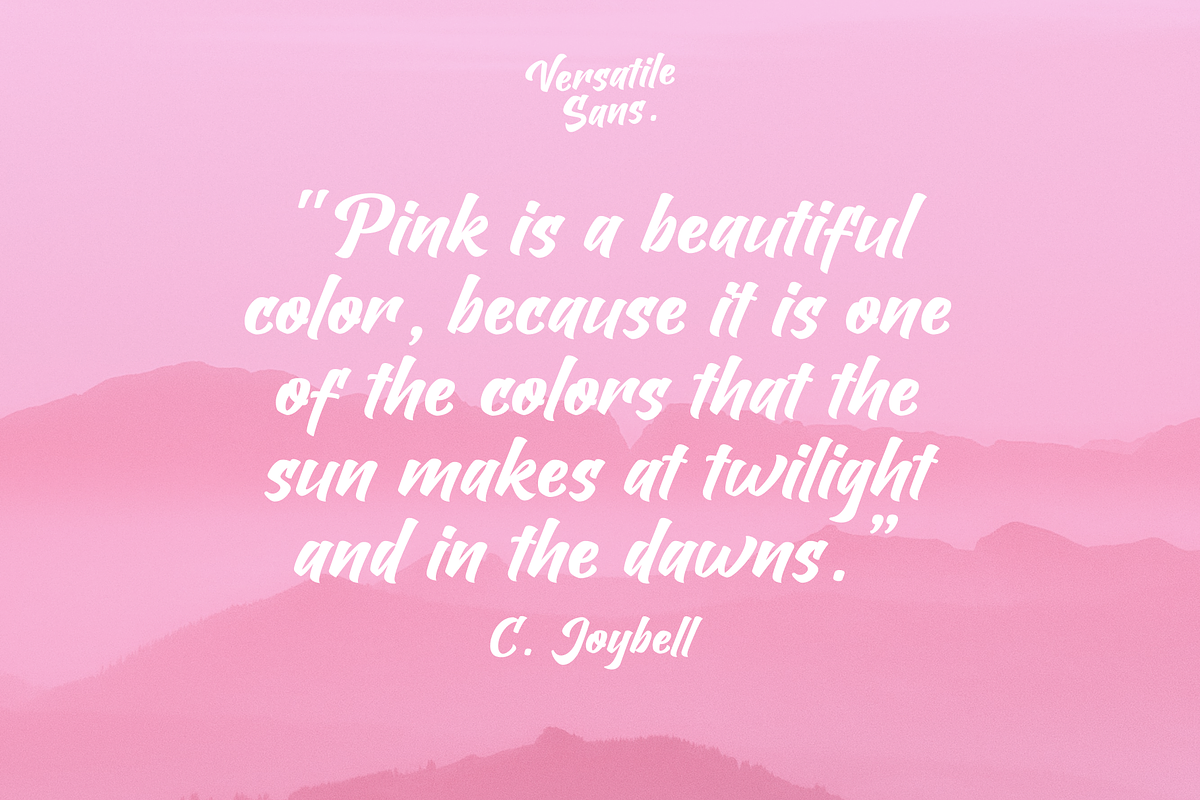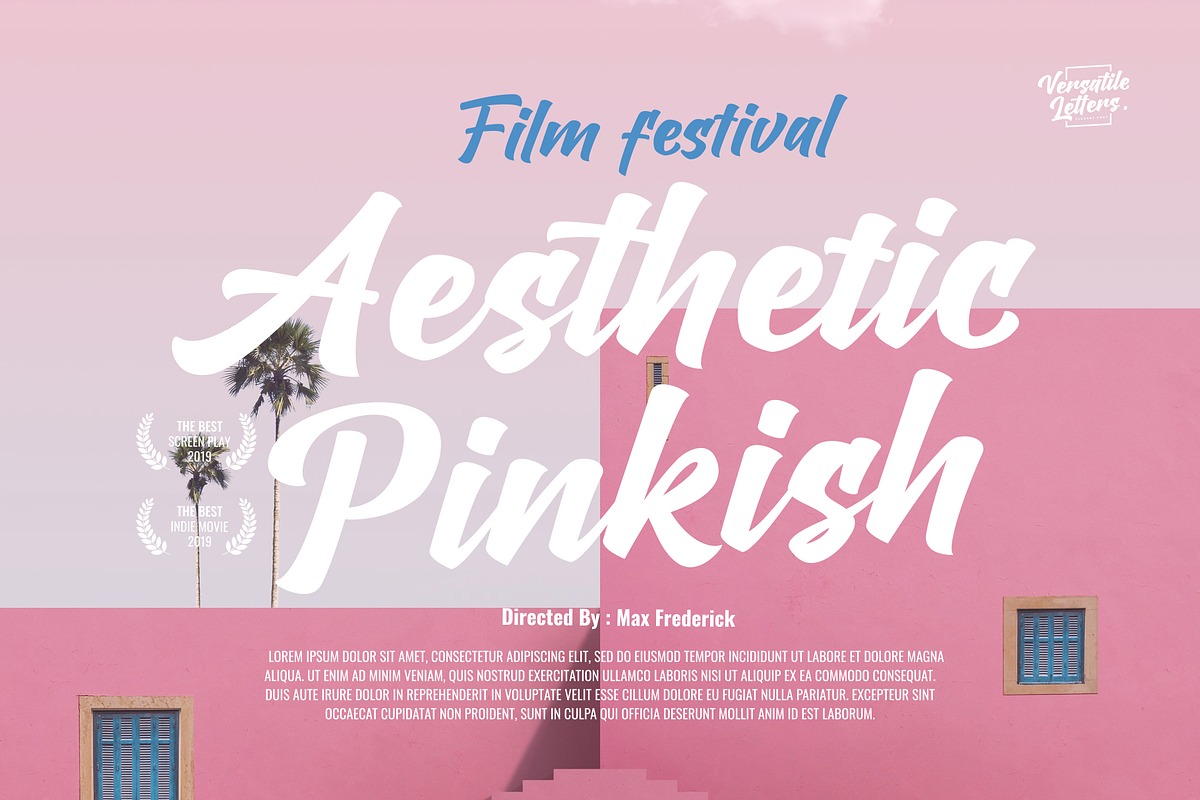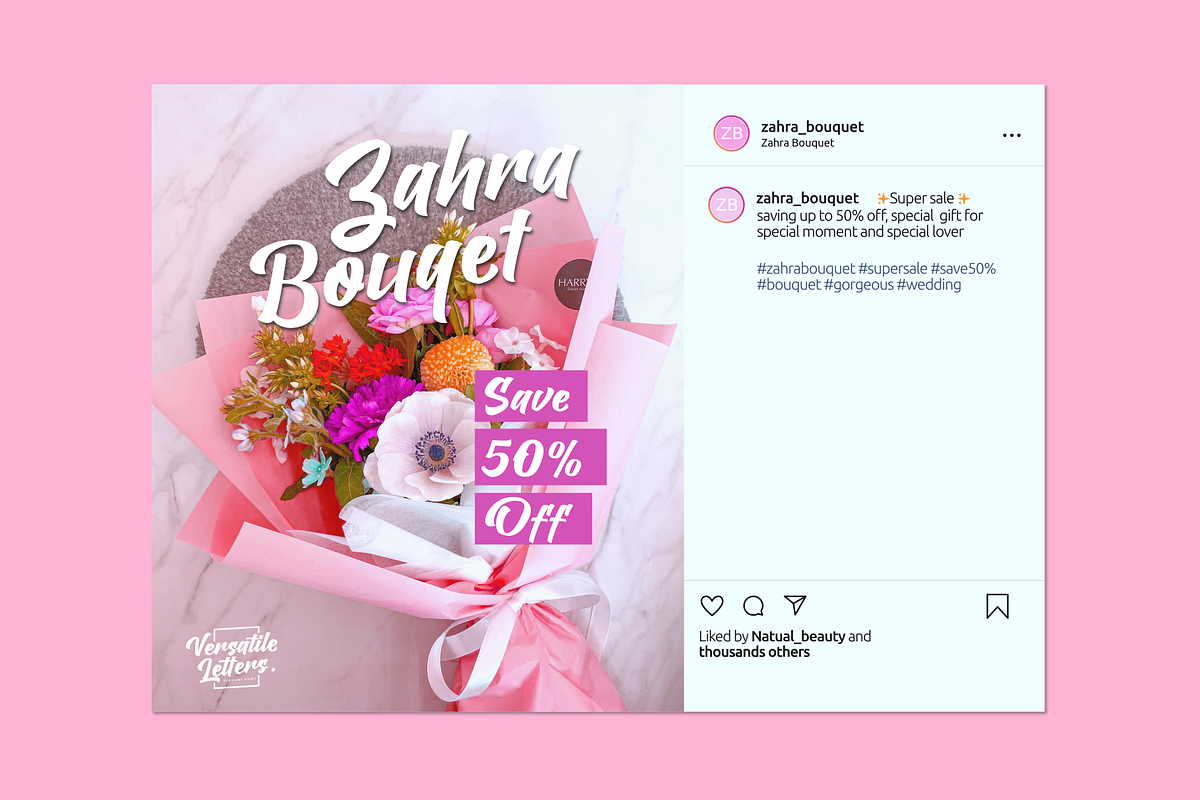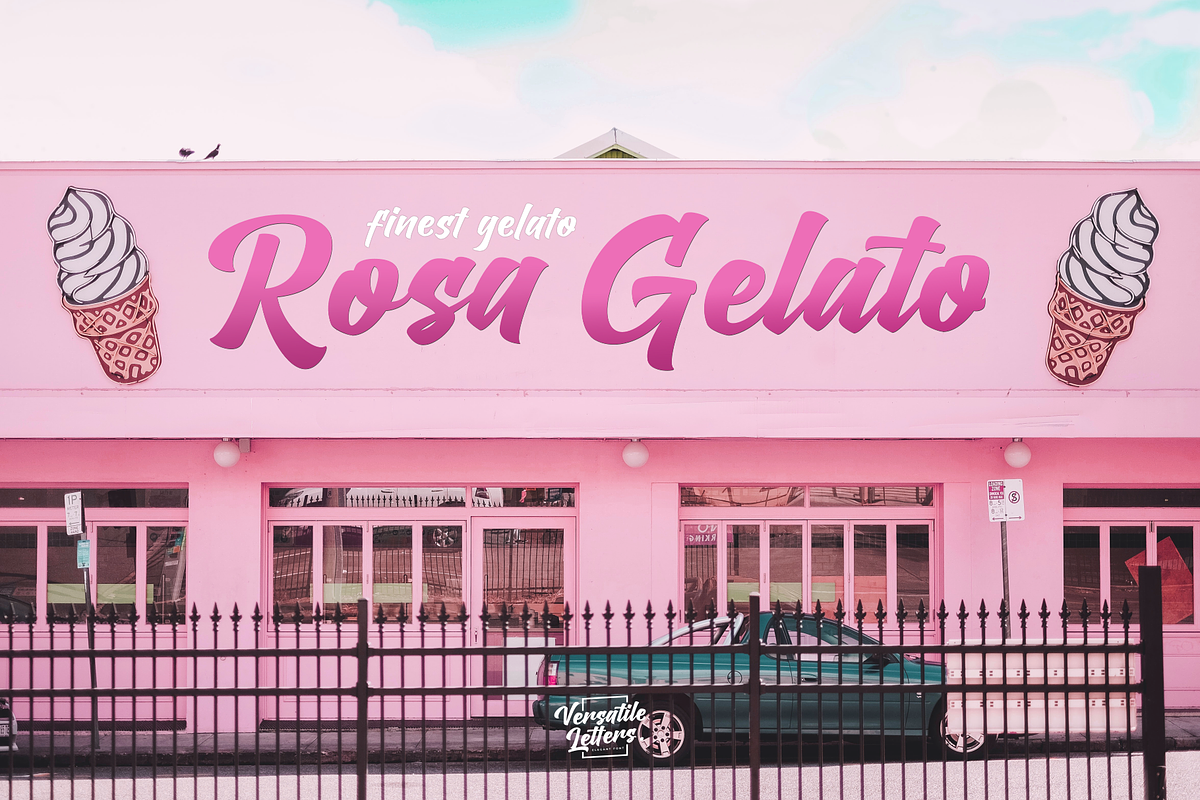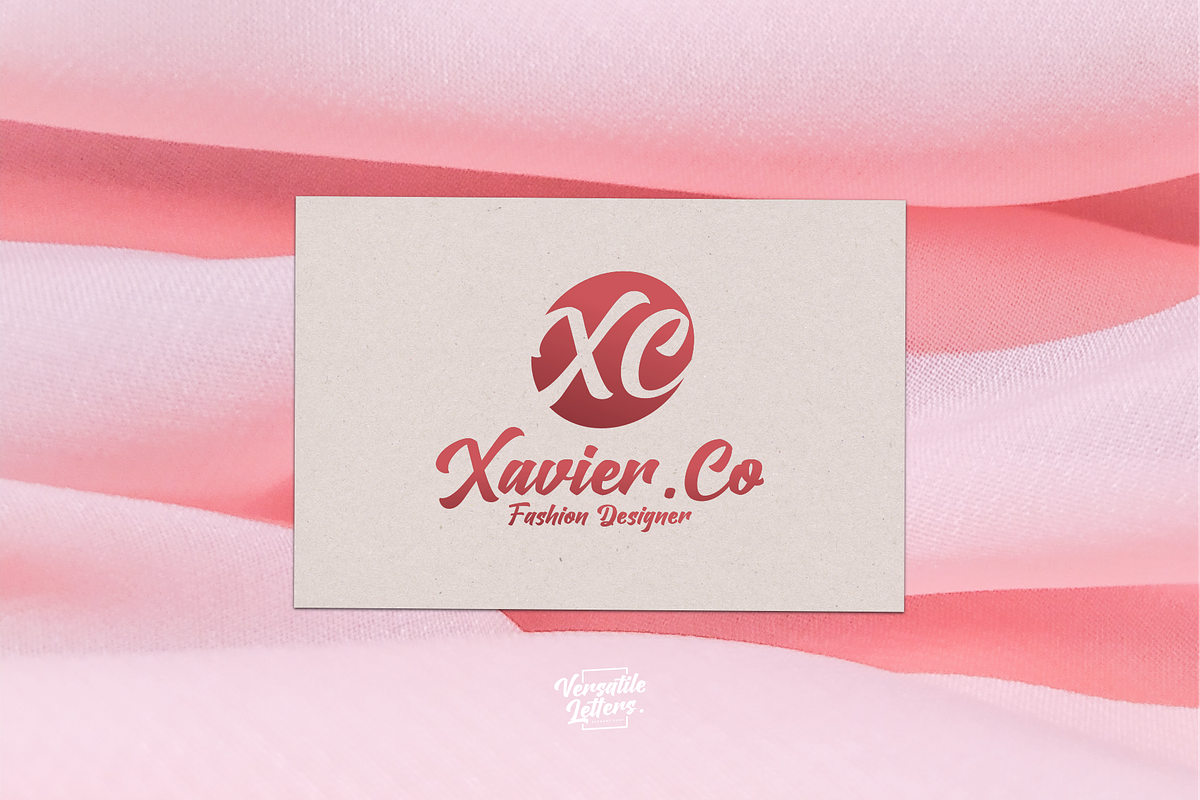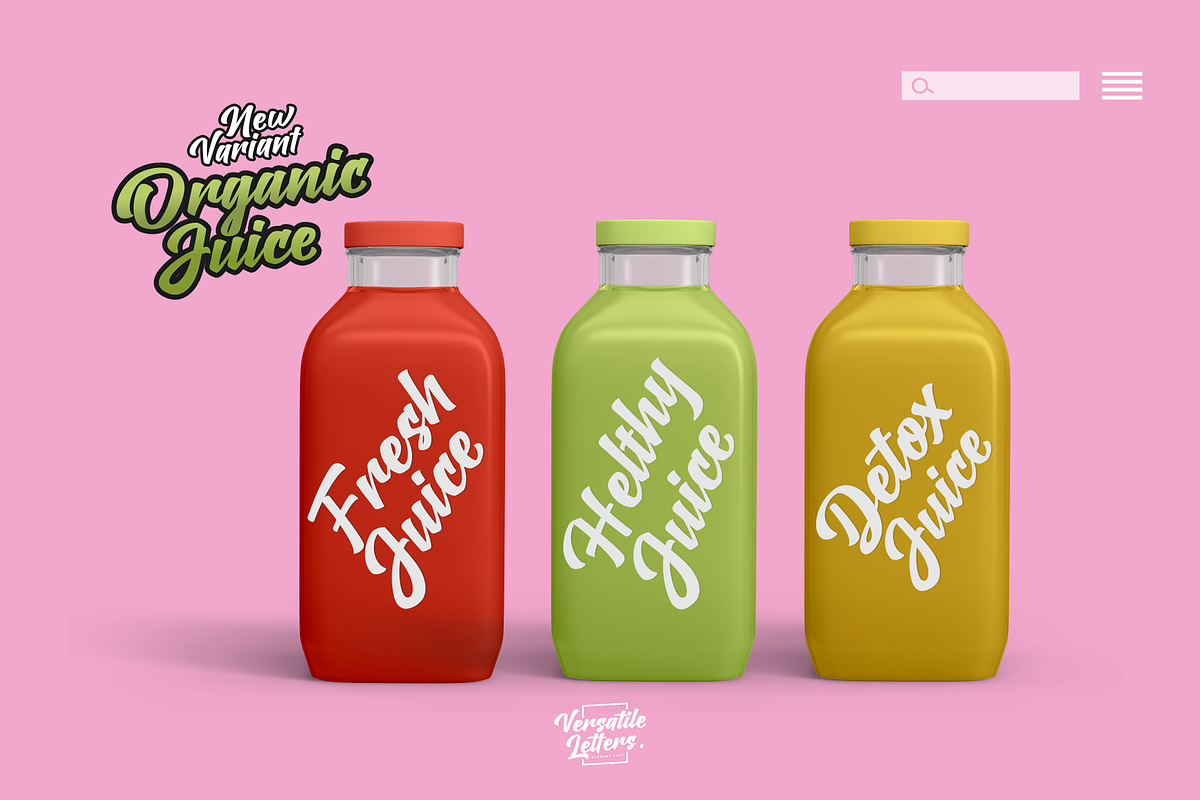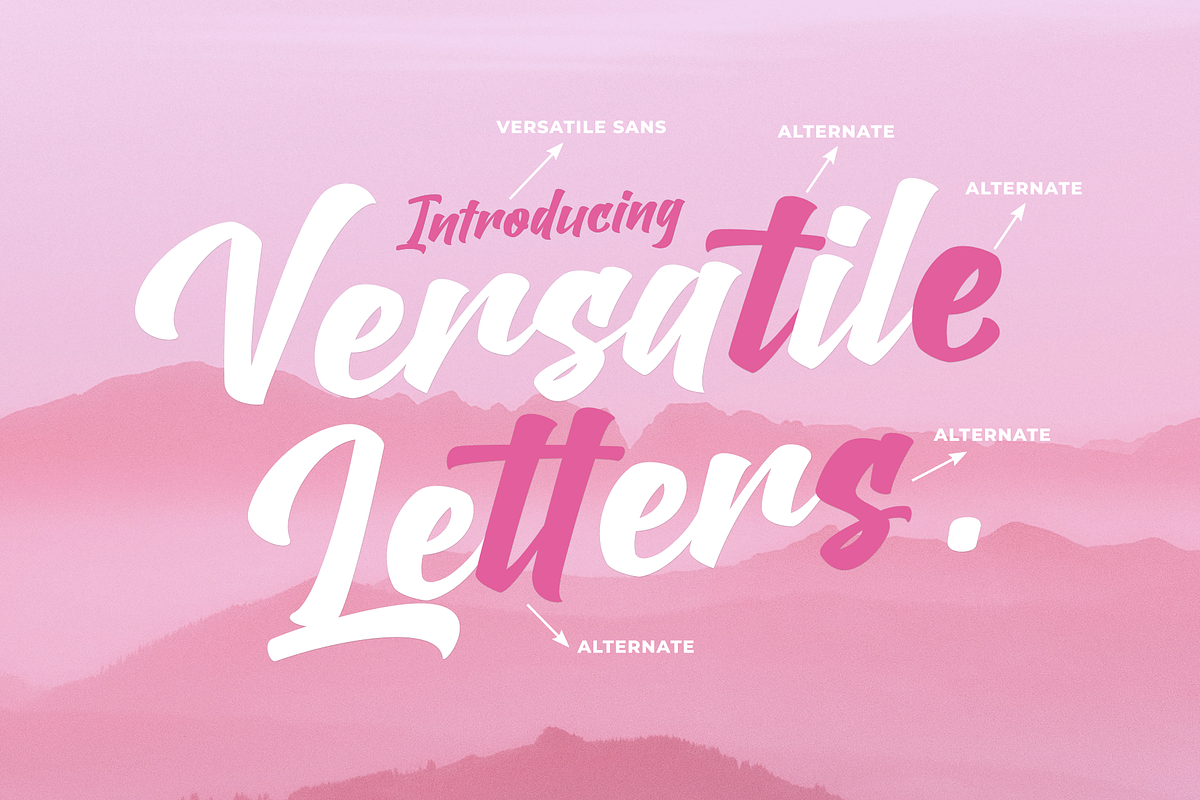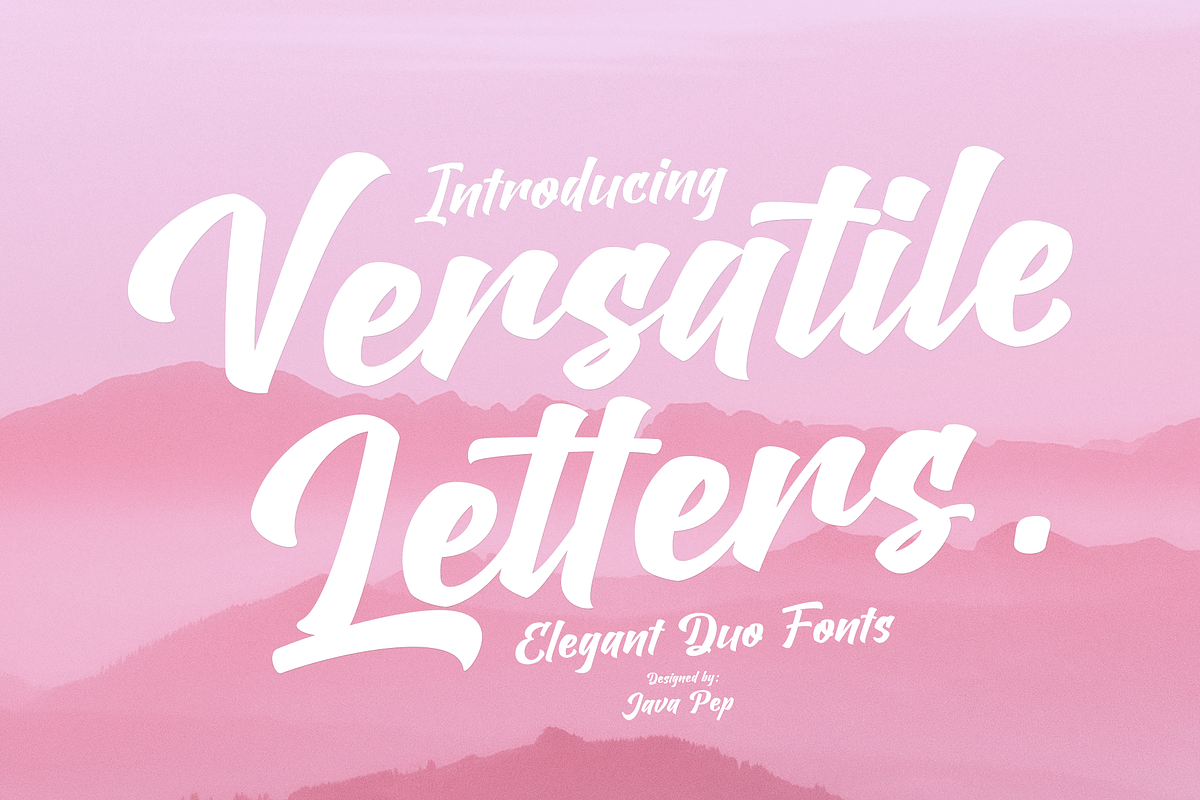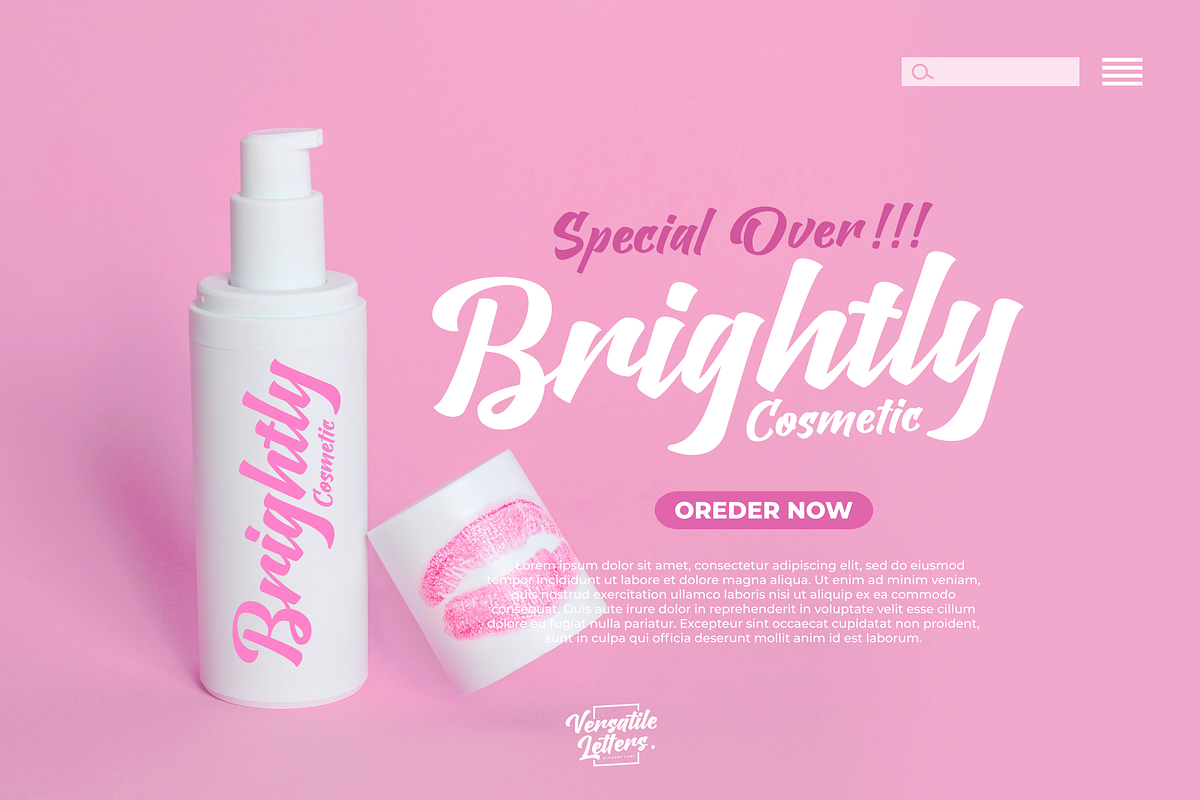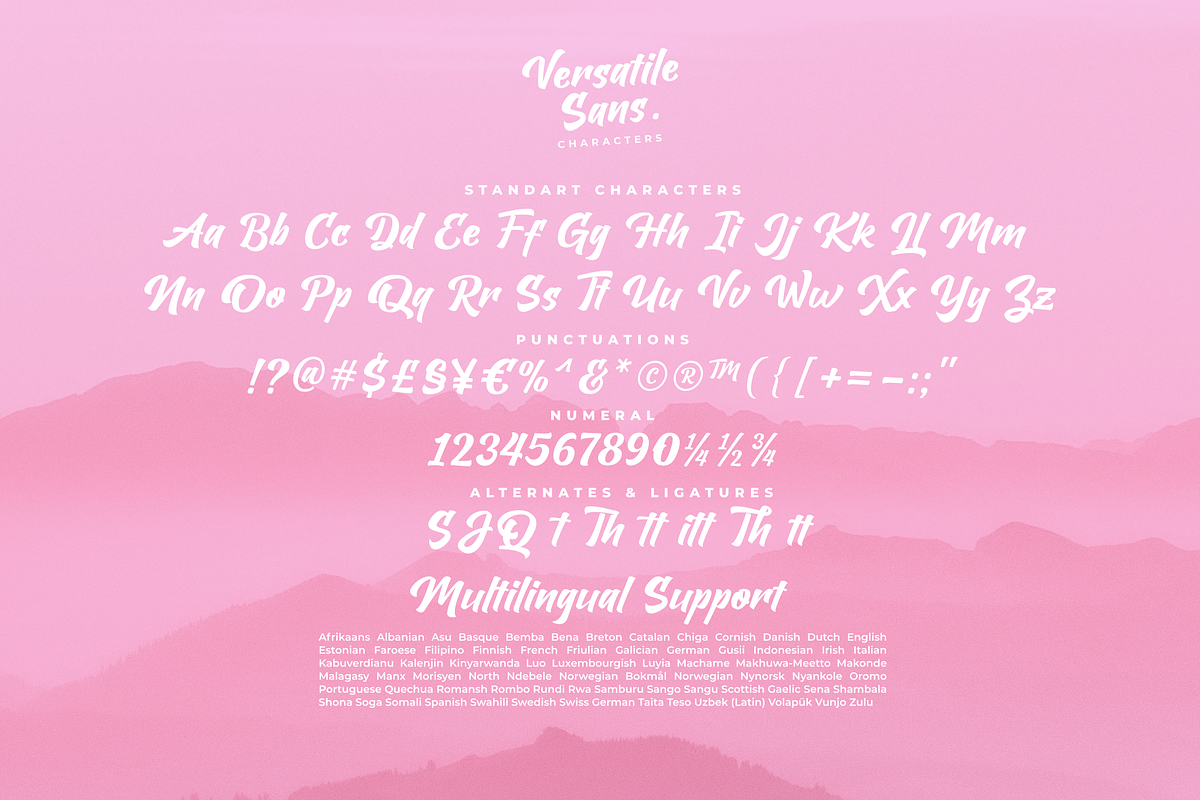
Versatile Letters / Duo Fonts
Proudly present the collaborations of elegant, fresh, and modern duo script font we called Versatile Letters and Versatile Sans. According to the name of the font, Versatile Letters this font is useable for anything your project design such as logo font, title, headline, products packaging, branding identity, advertisements, media social post, quote text, and more. The font is also built with OpenType features like alternates and ligatures. So you can mix and match according to what do you need.